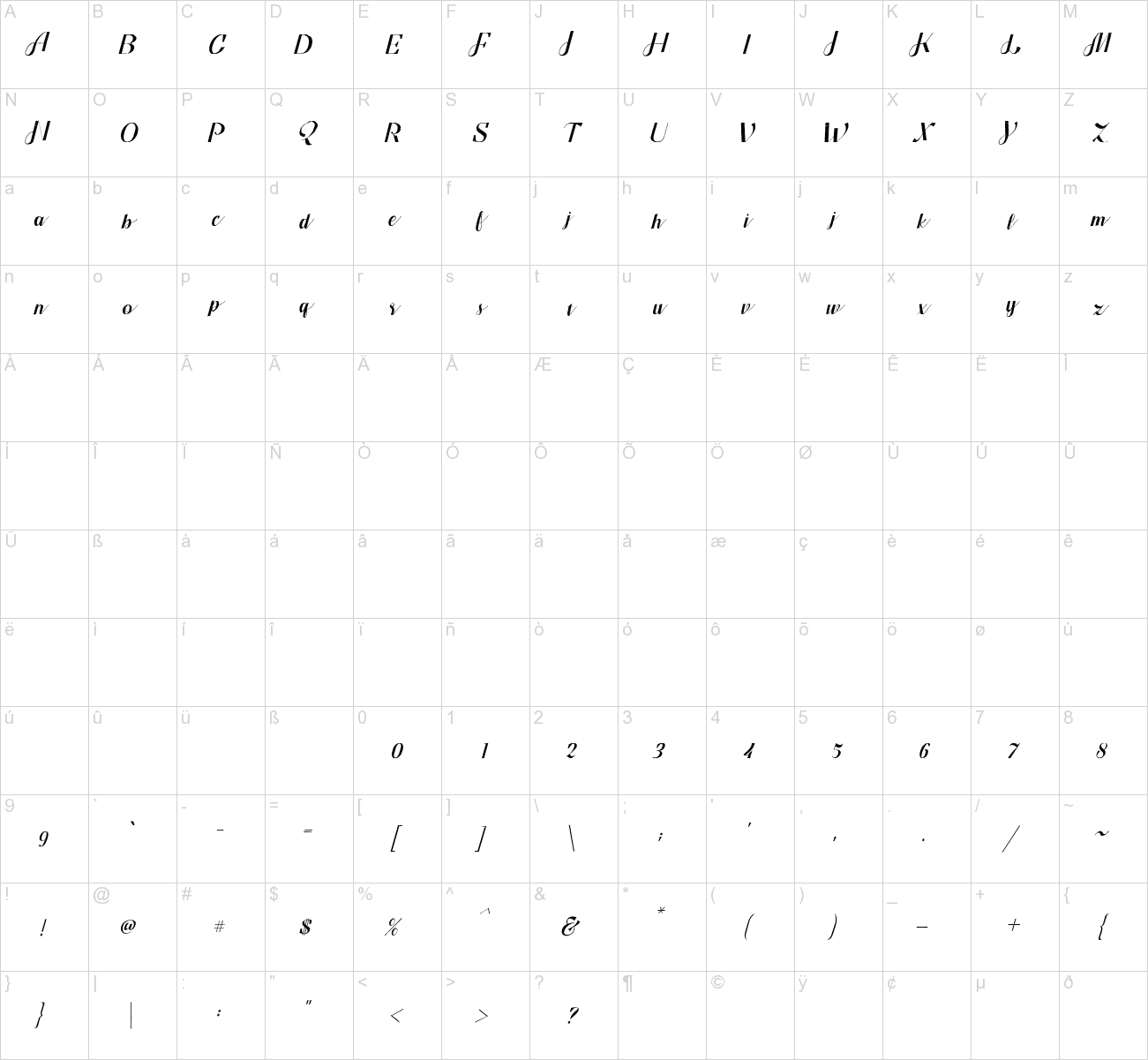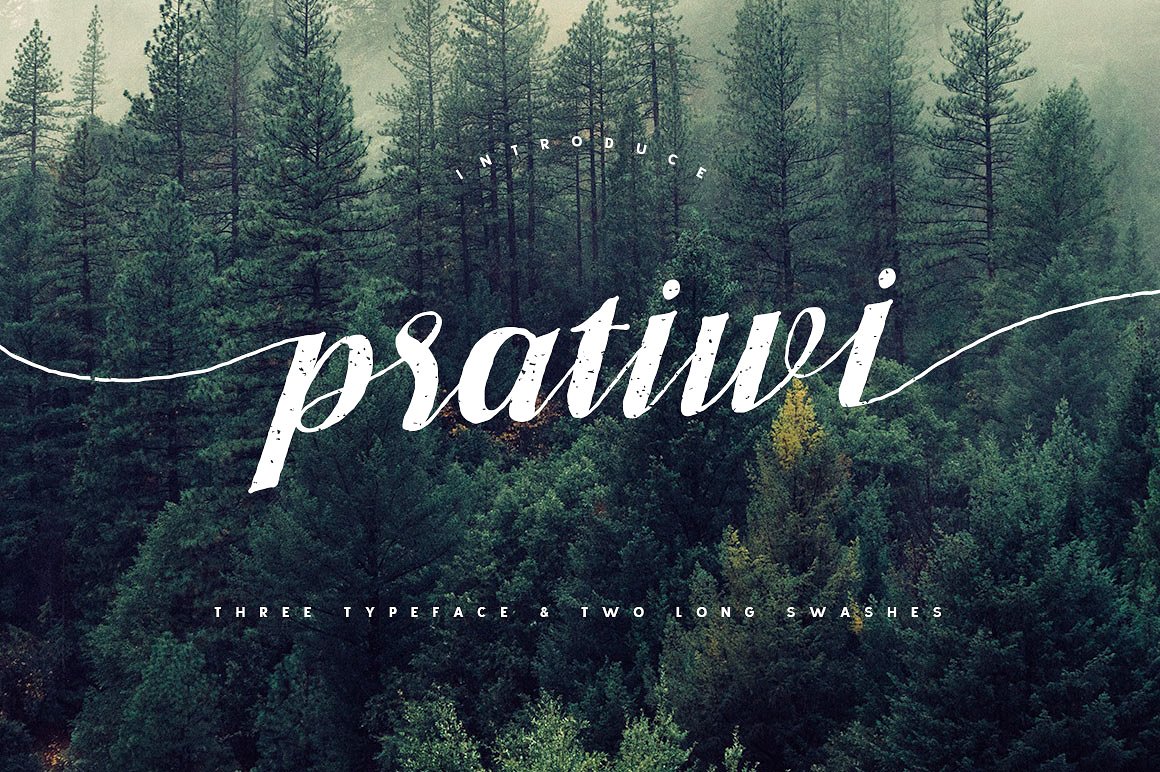
Pratiwi Typeface – Free Swashes
Give your designs an authentic handcrafted feel. “Pratiwi Typeface” is perfectly suited to stationery, logos and much more. Inspired from the name of my wife and the name of Indonesian-Bandung culture.
| Classification: | Display Fonts, Script Fonts |